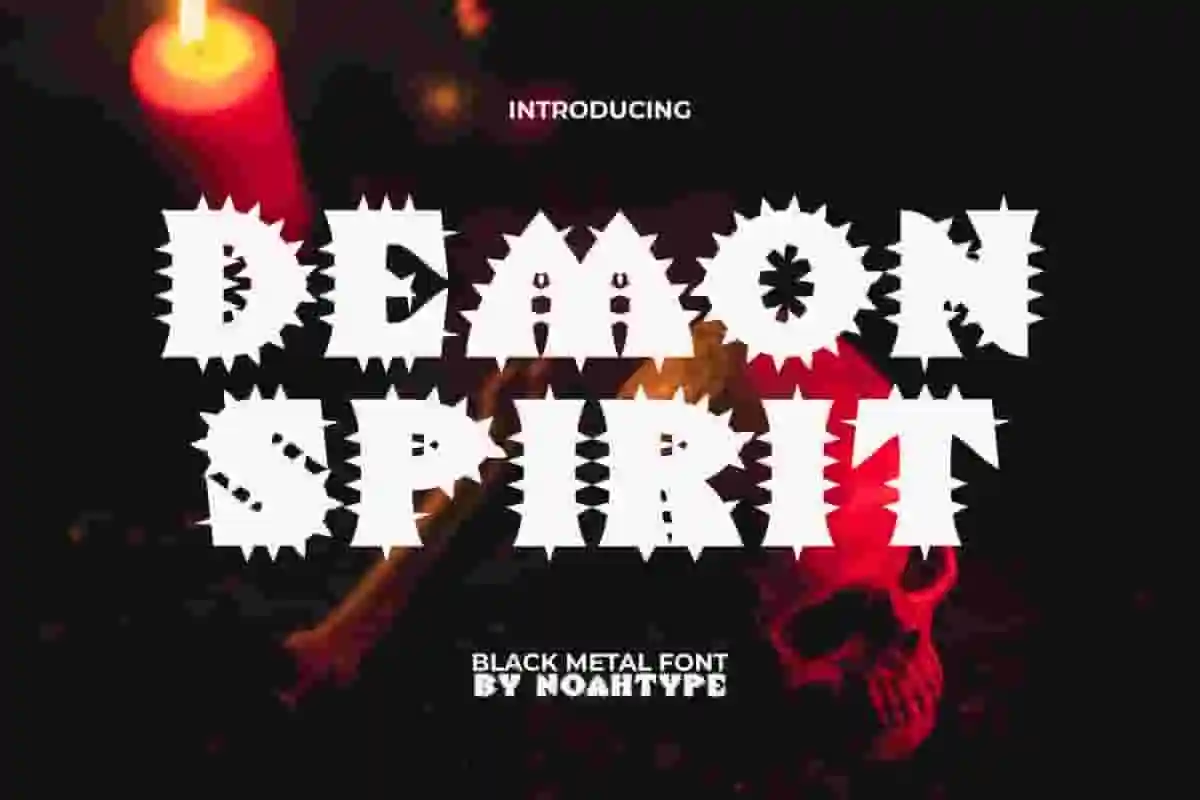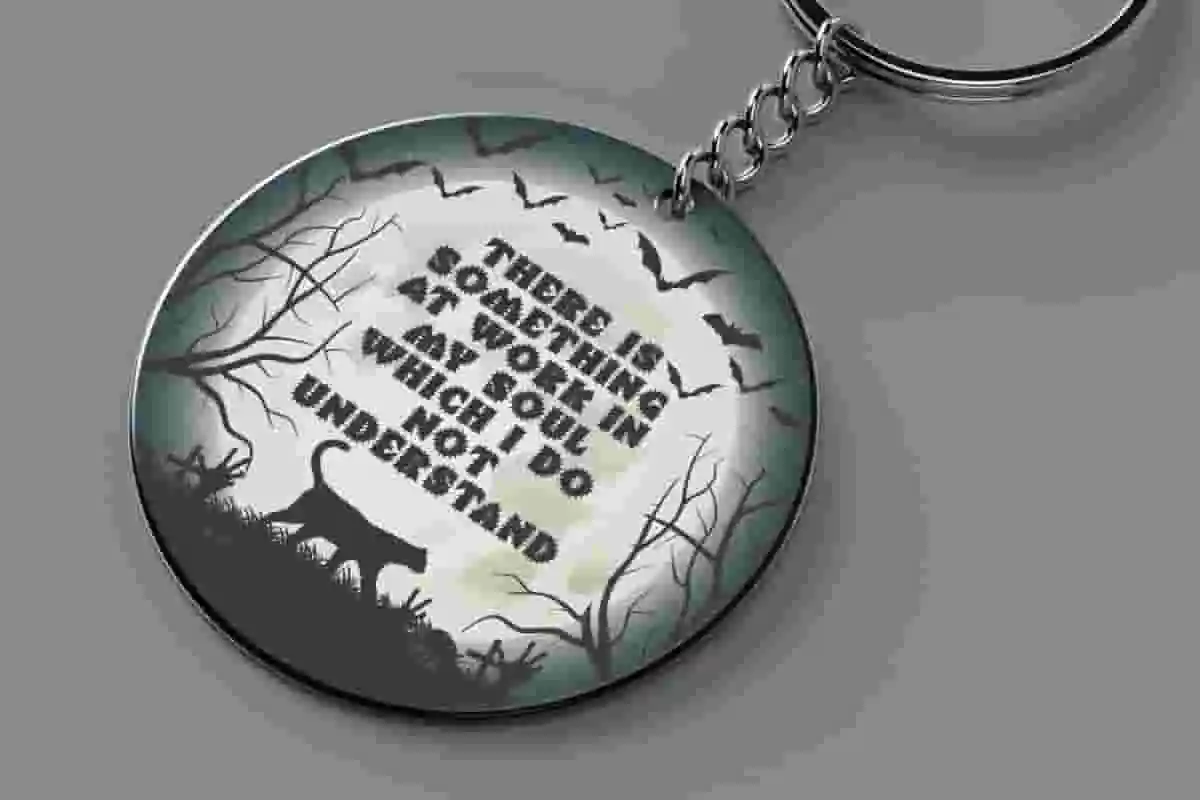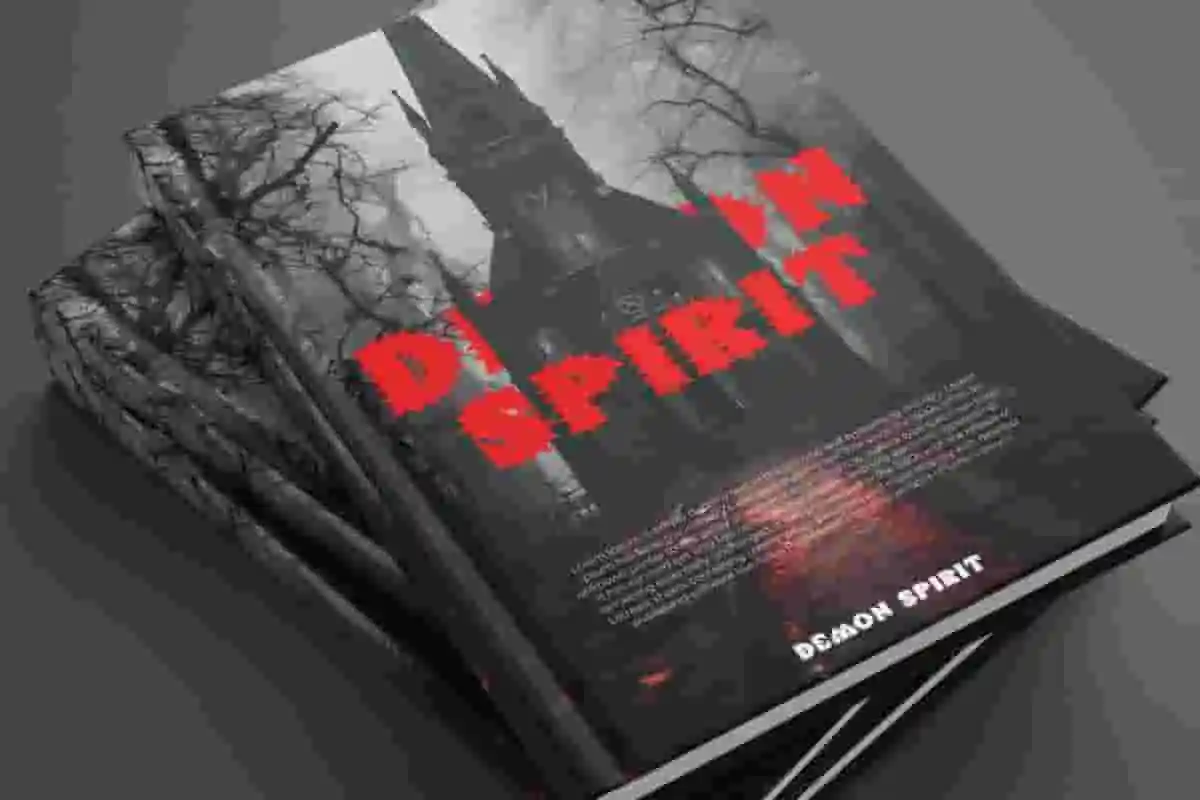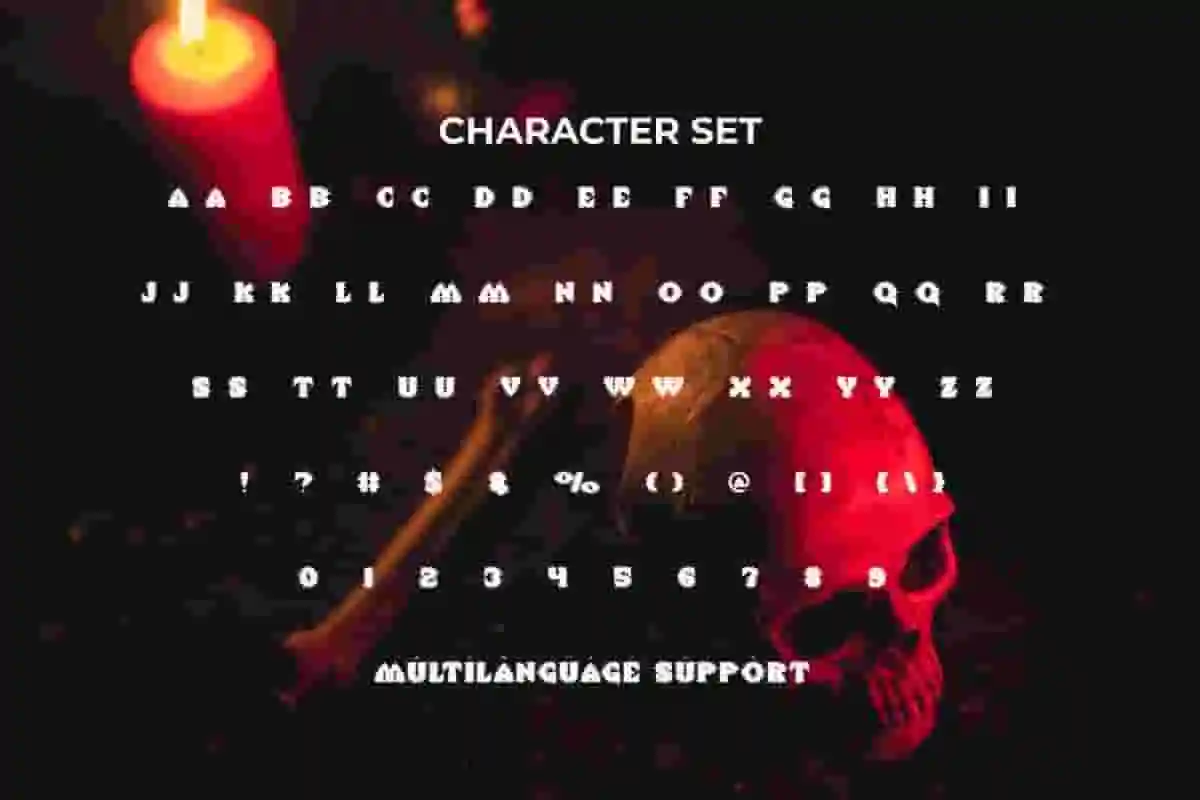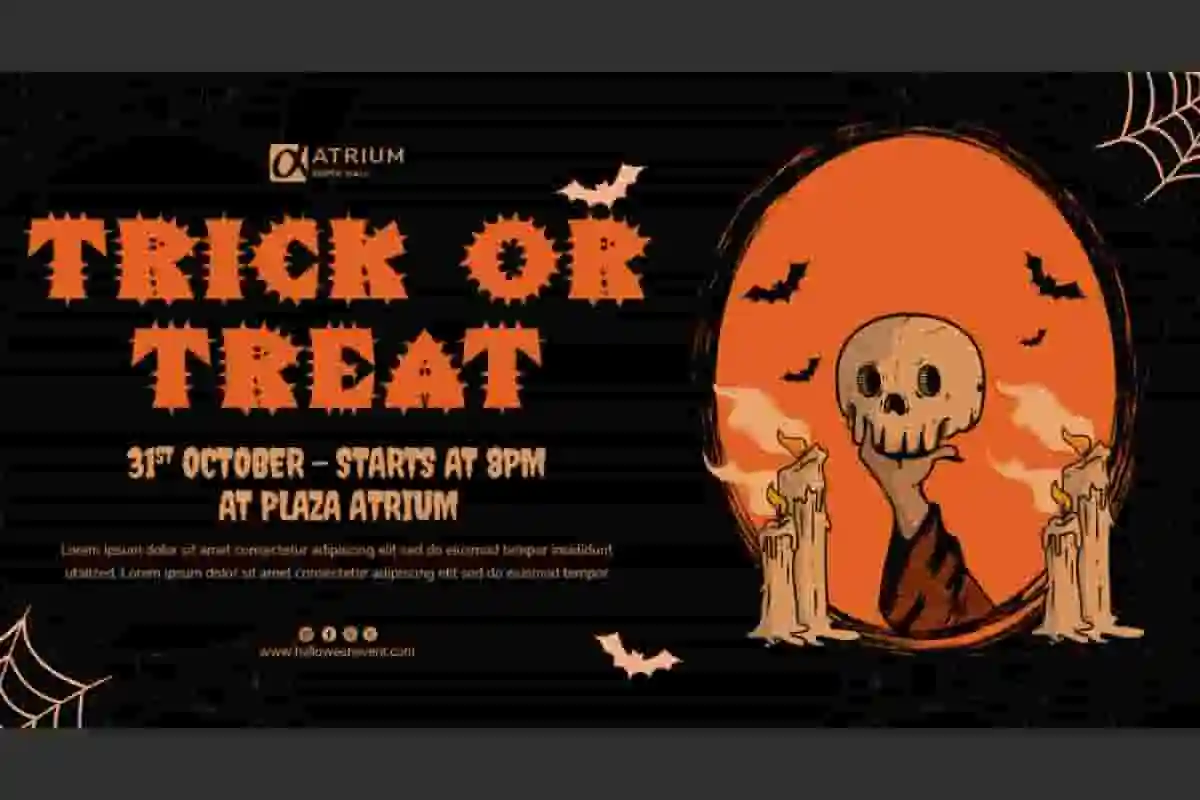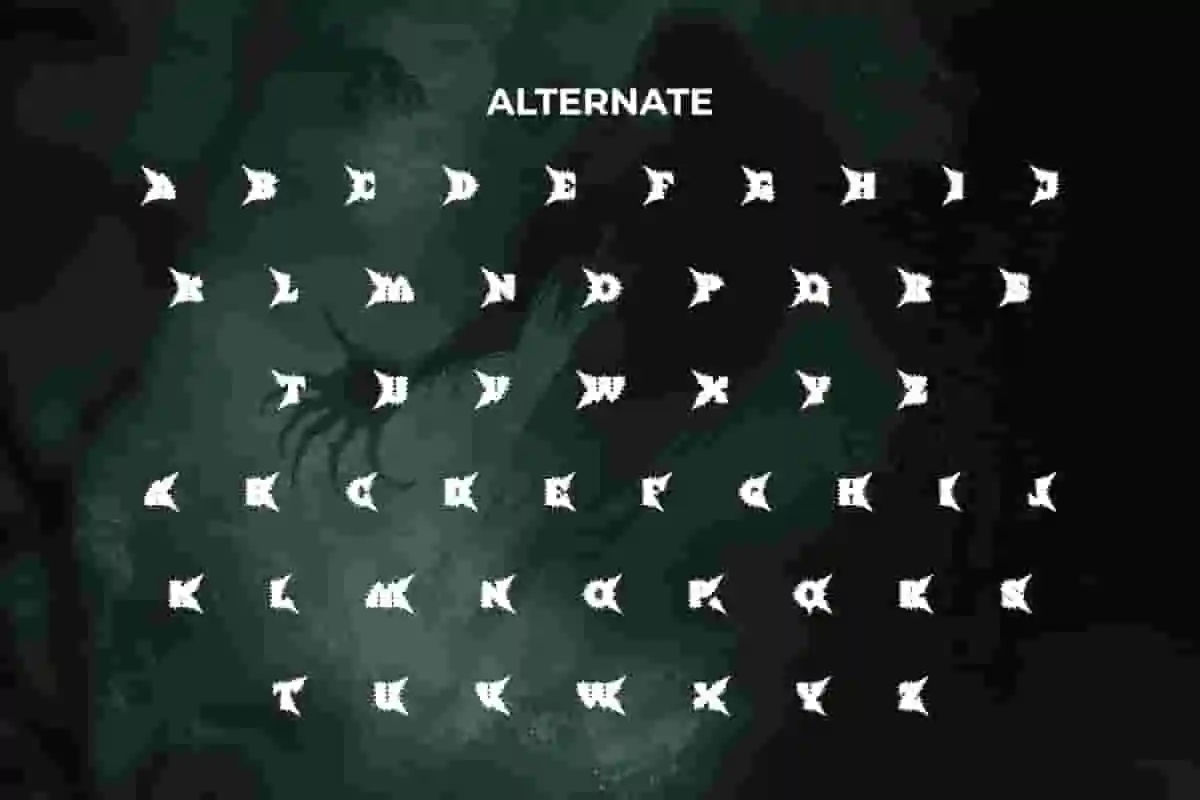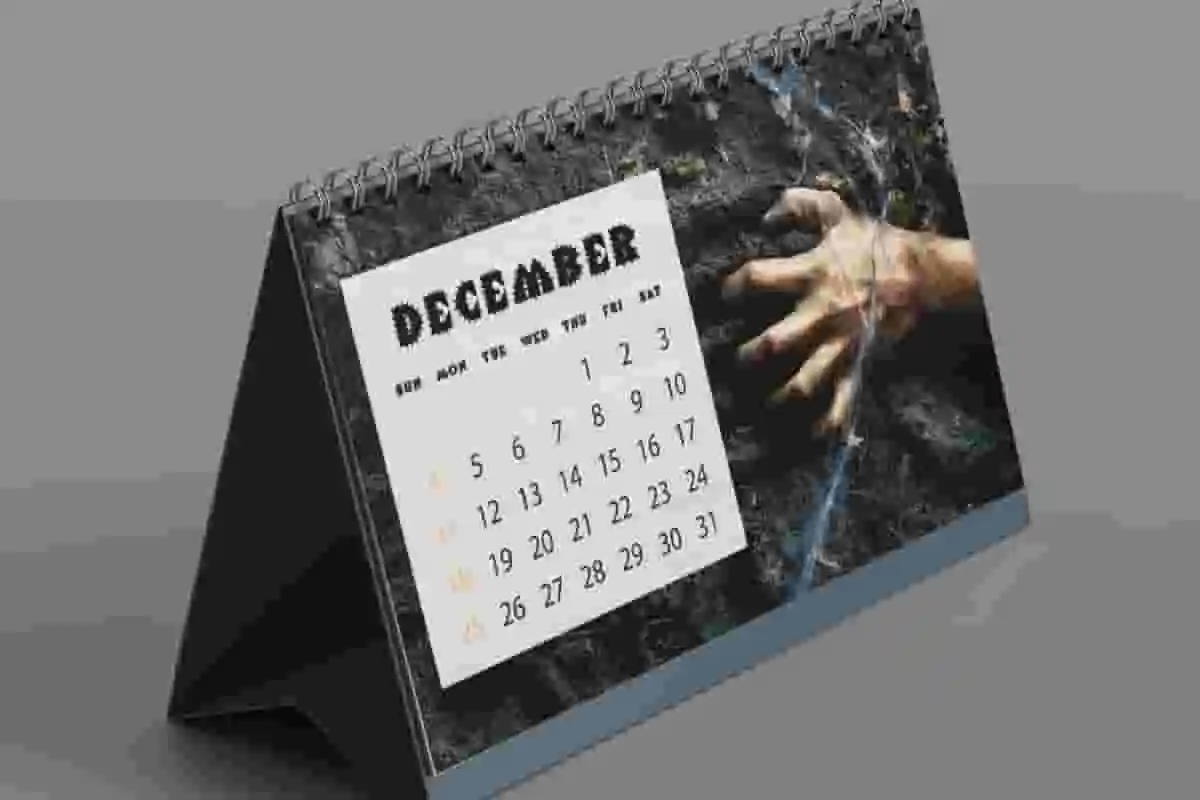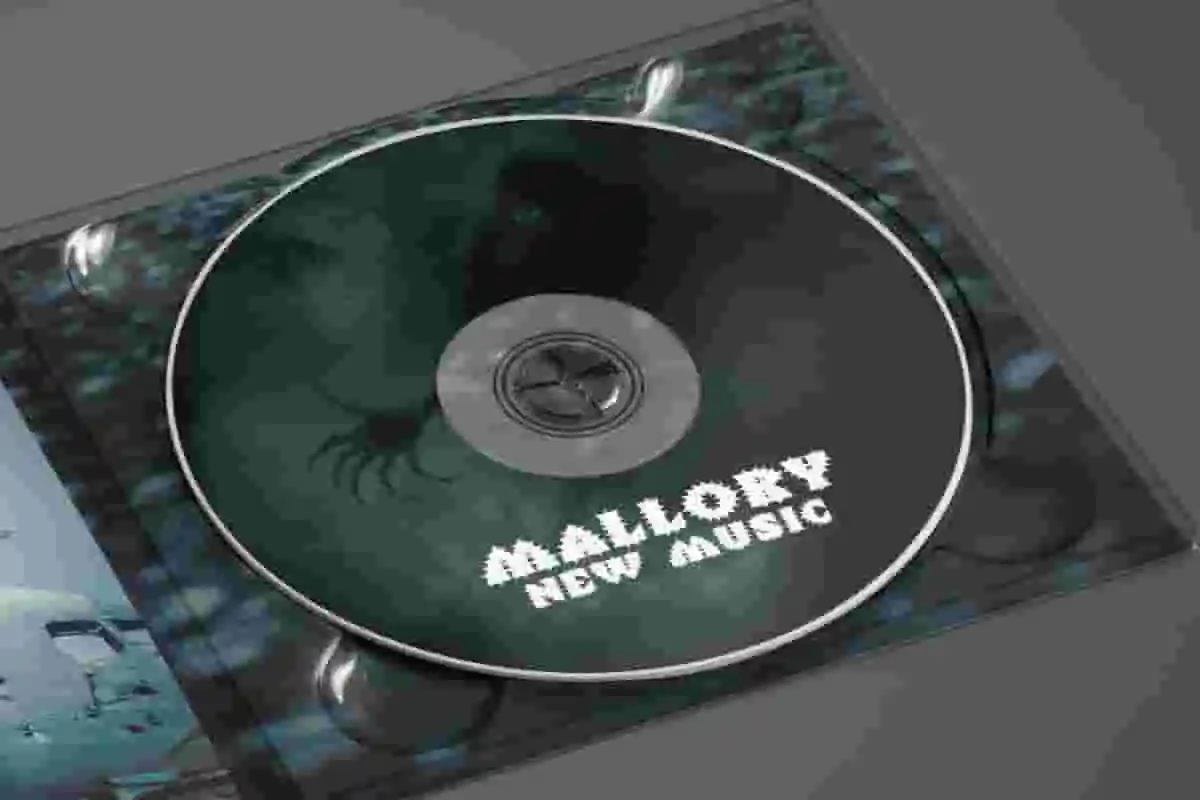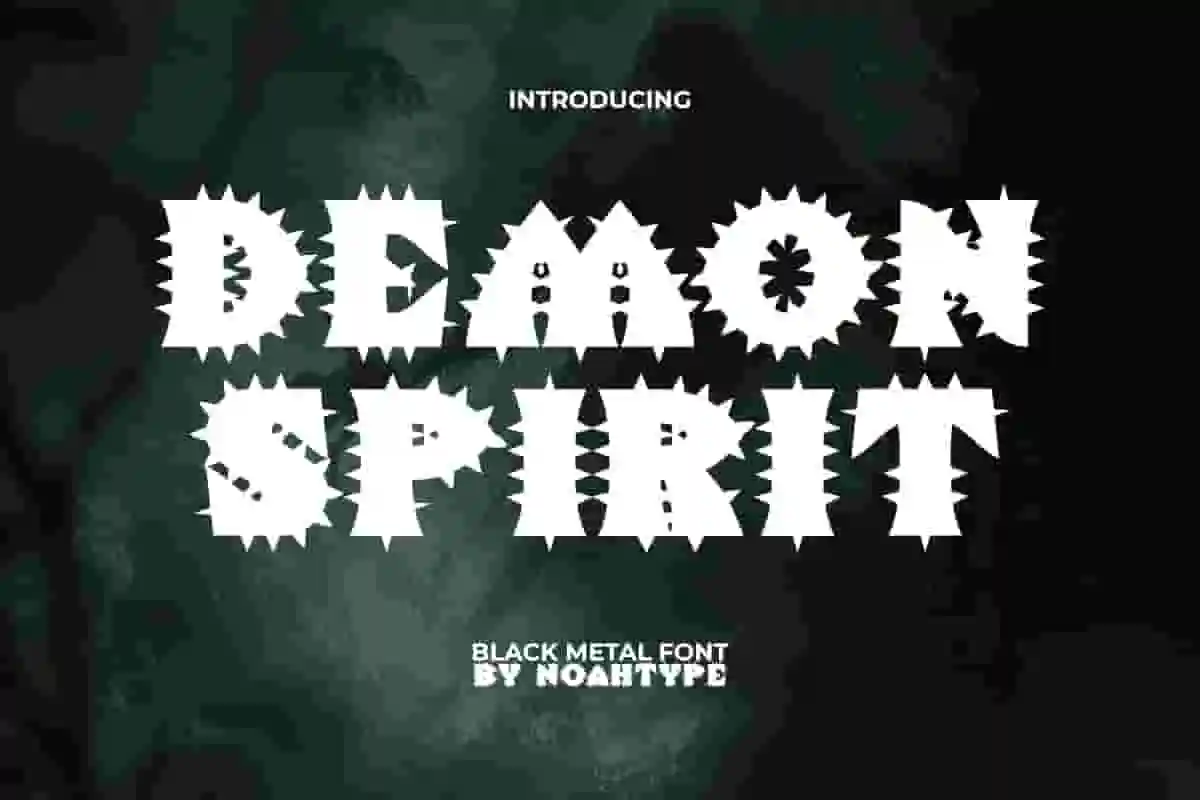
Demon Spirit Font is a mysterious horror and unique Black Metal but delivered in a playful display font by NoahType. This font can leave a spooky and fun impression at the same time because of its unique shape. It will be perfect for any designs, such as custom design, brand image, poster, label, invitation, cover, marketing material, menu, printing, product packaging, quotes, signage, website, and many more!
Demon Spirit Font includes full set of ALL CAPS for Uppercase and Lowercase Basic Characters, Numerals, Punctuation, Symbol, and Alternate character. This cool font will make your design amazing and also a perfect choice for many industries, such as game, movie, comic, music, accessories, advertising, art, café, event or festival, fashion, printing, publishing, etc.